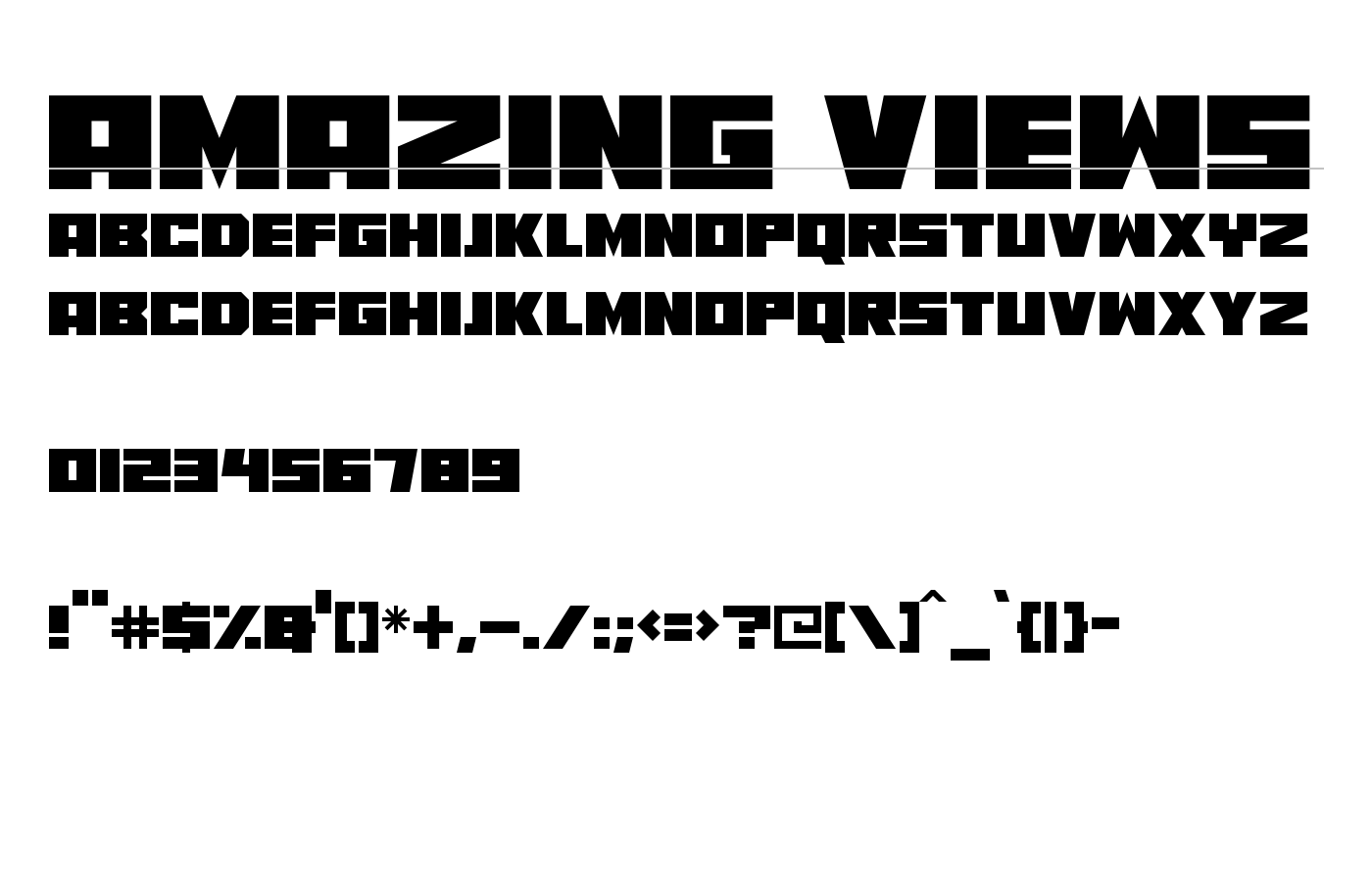
Amazing Views is a bold, geometric sans serif font with strong, blocky letterforms that convey power and modernity. Its compact width and uniform stroke weight give it a sturdy, striking presence perfect for impactful headlines, logos, and branding in industries like technology or sports where a contemporary, confident vibe is desired. This font stands out in designs needing a sharp, energetic style with a futuristic edge.
Amazing Views Font